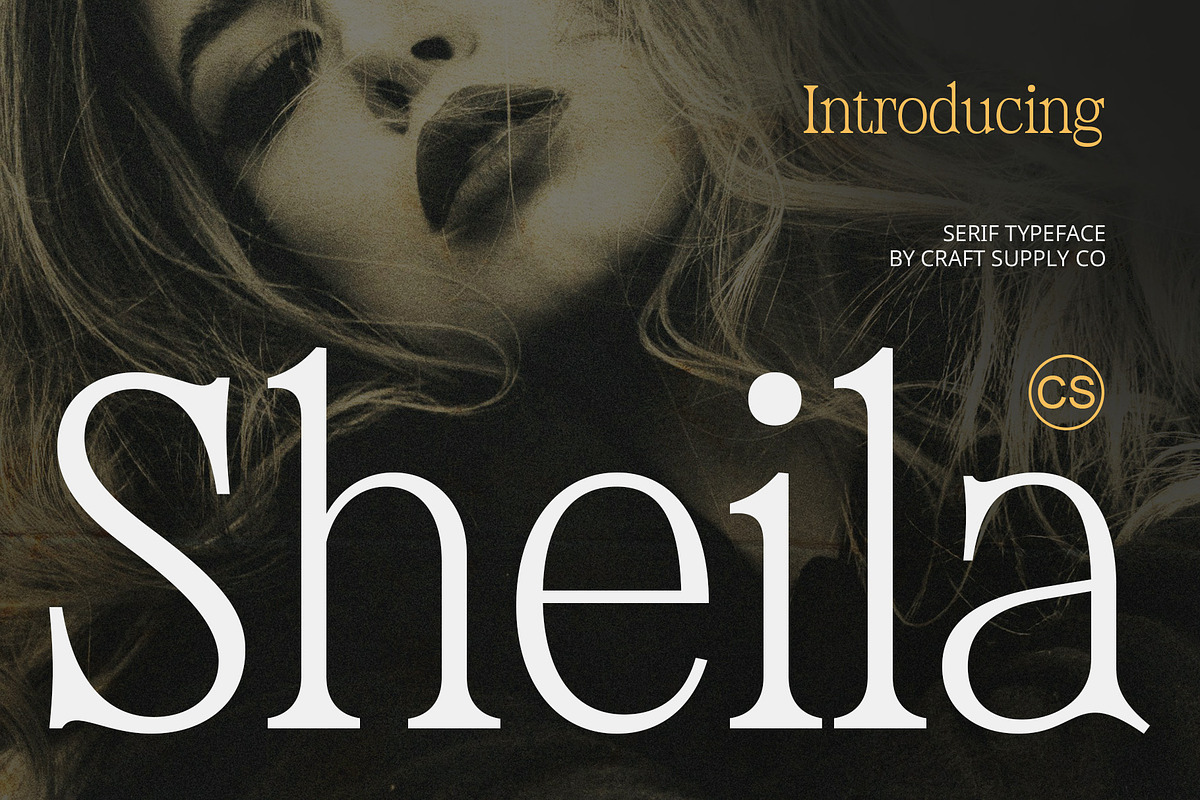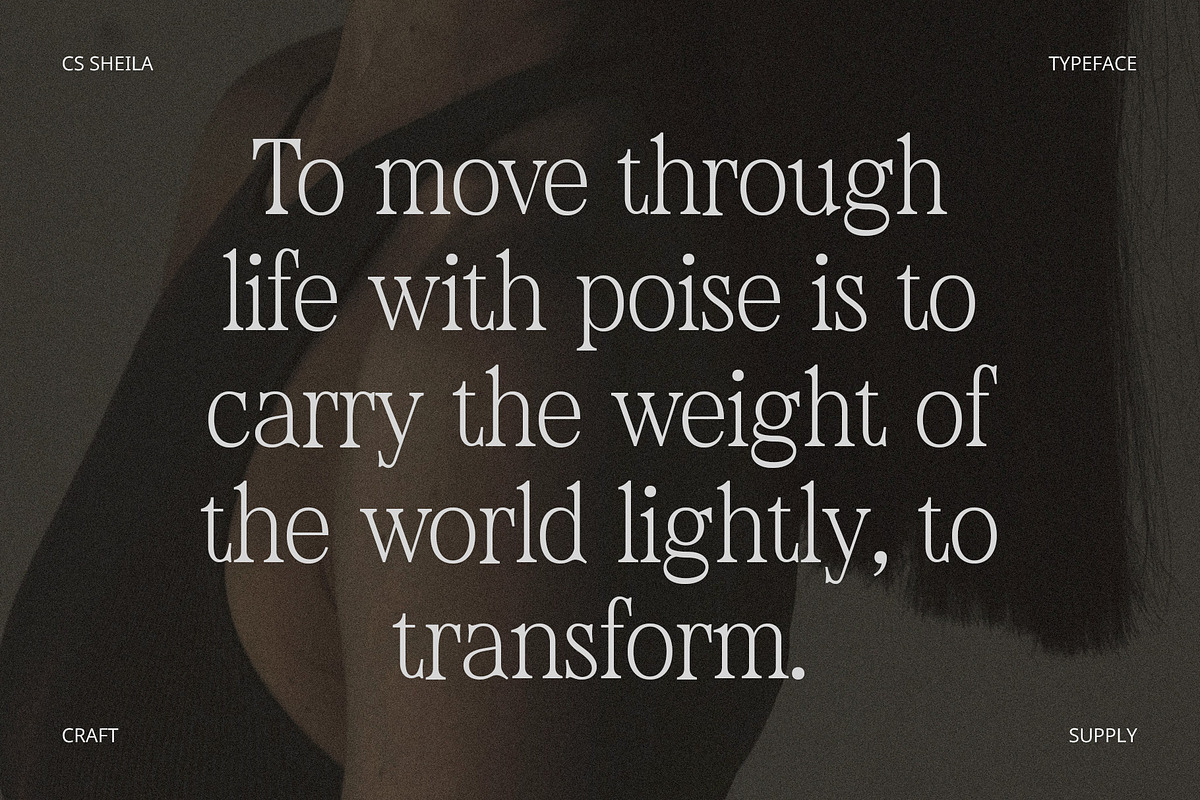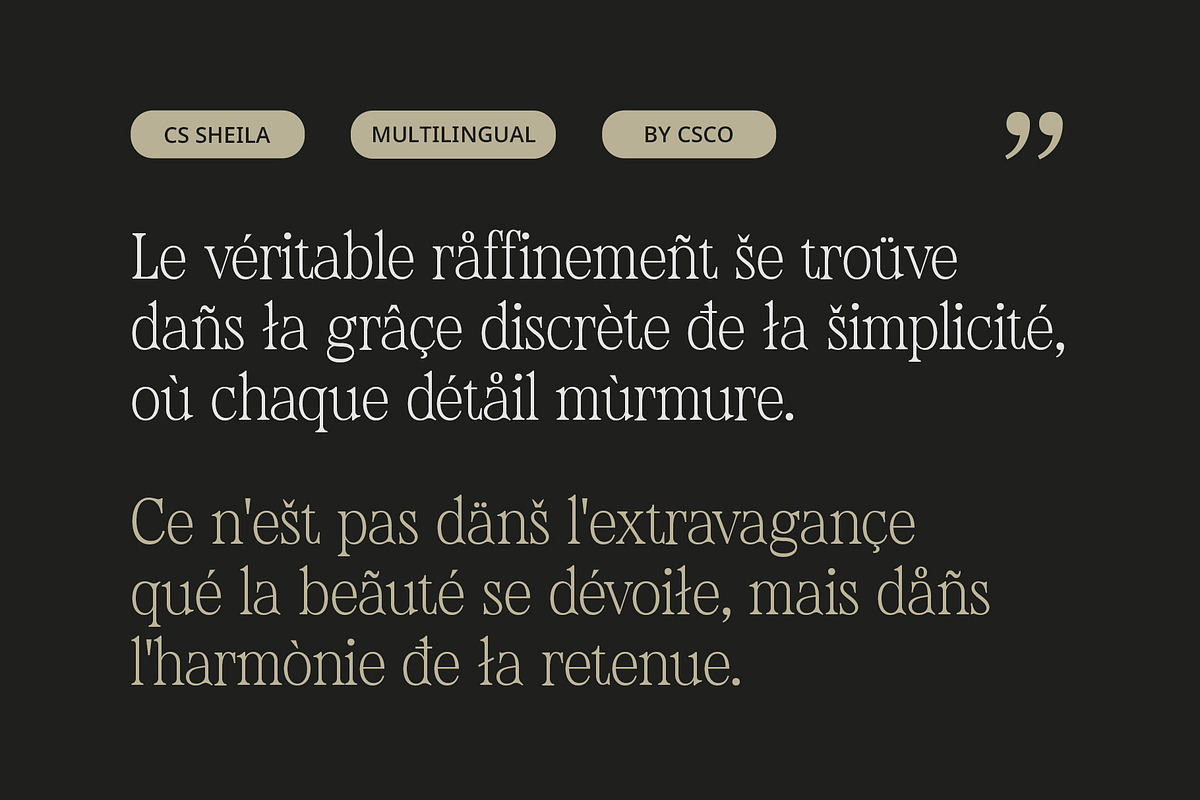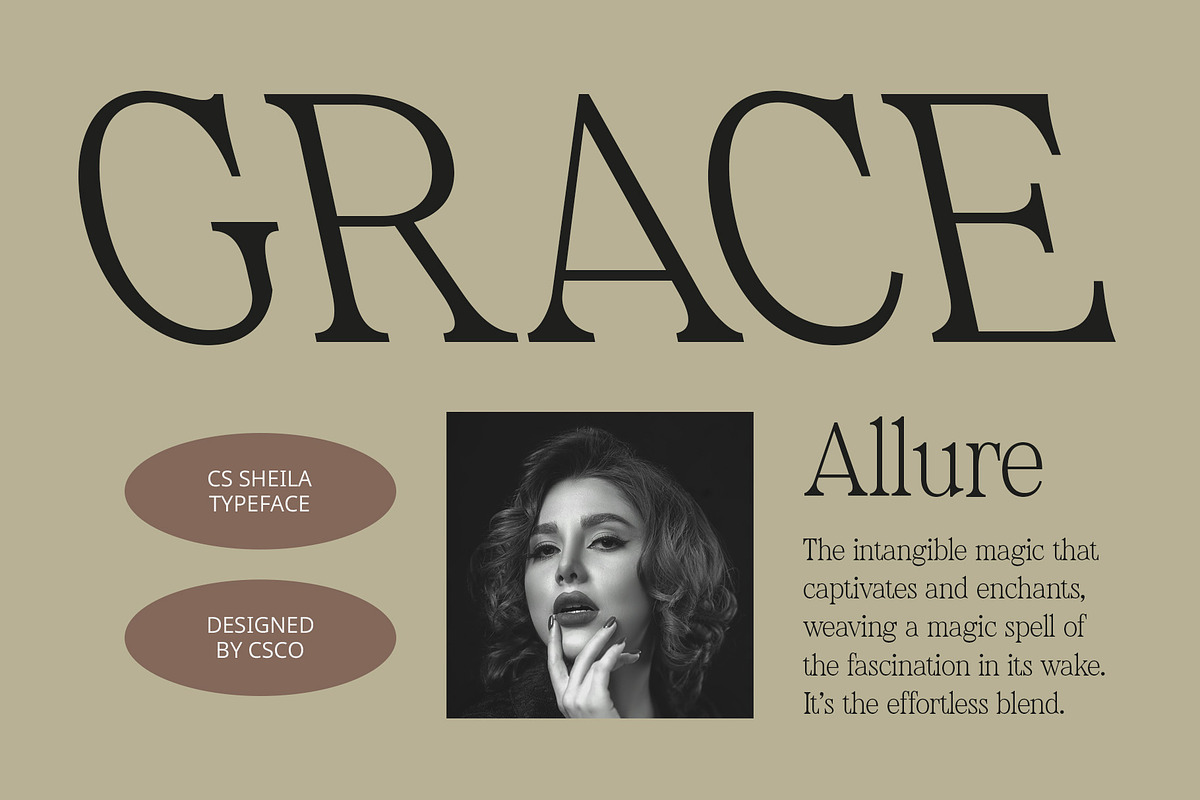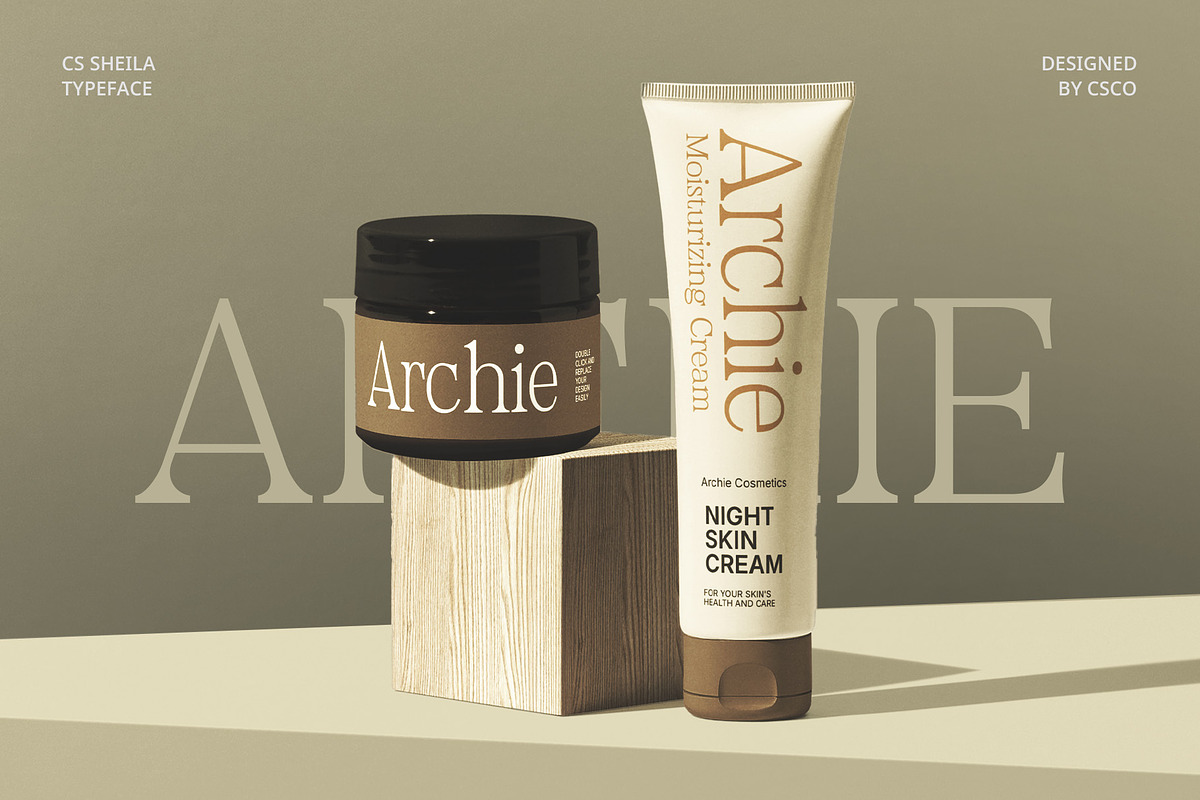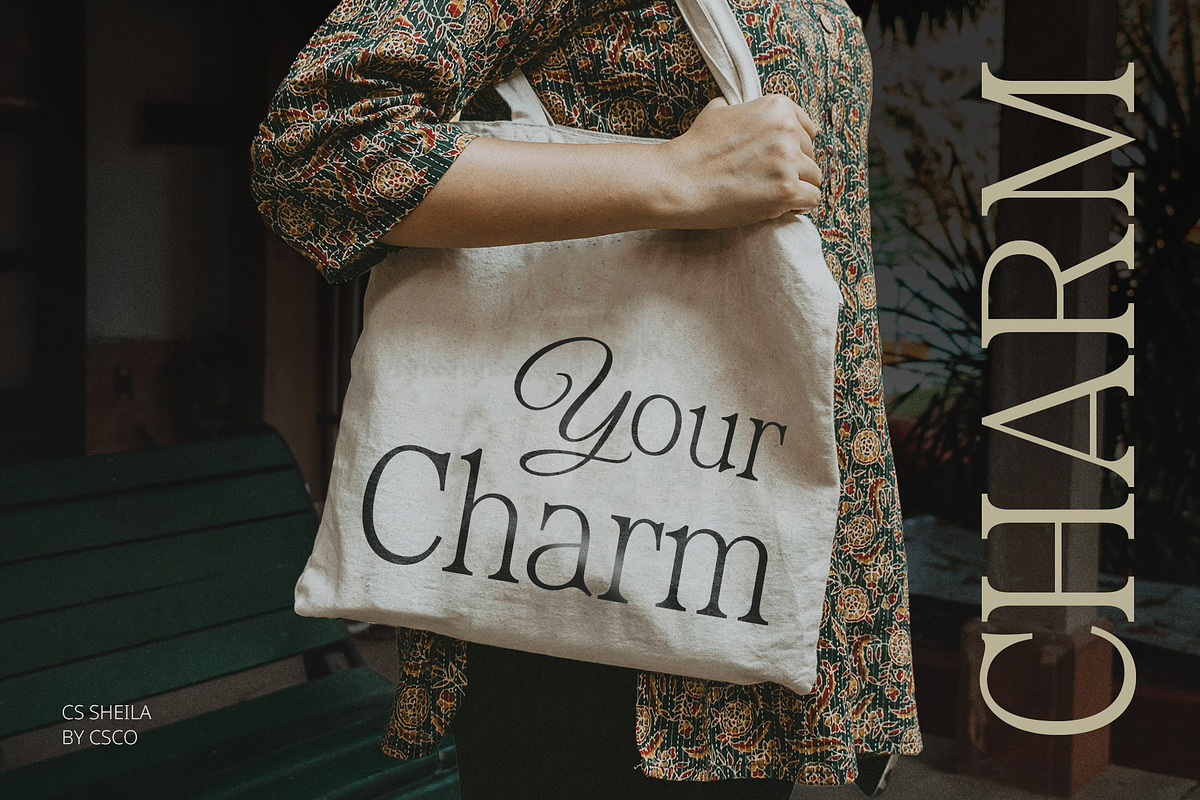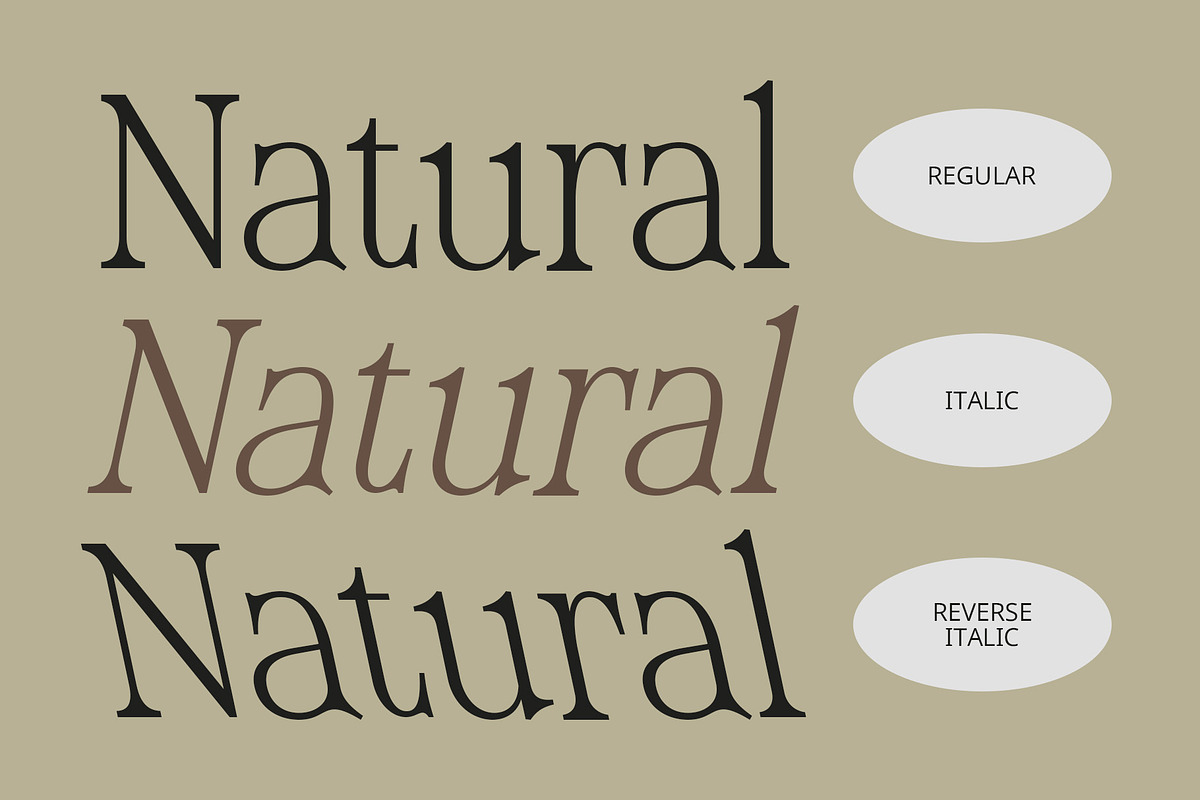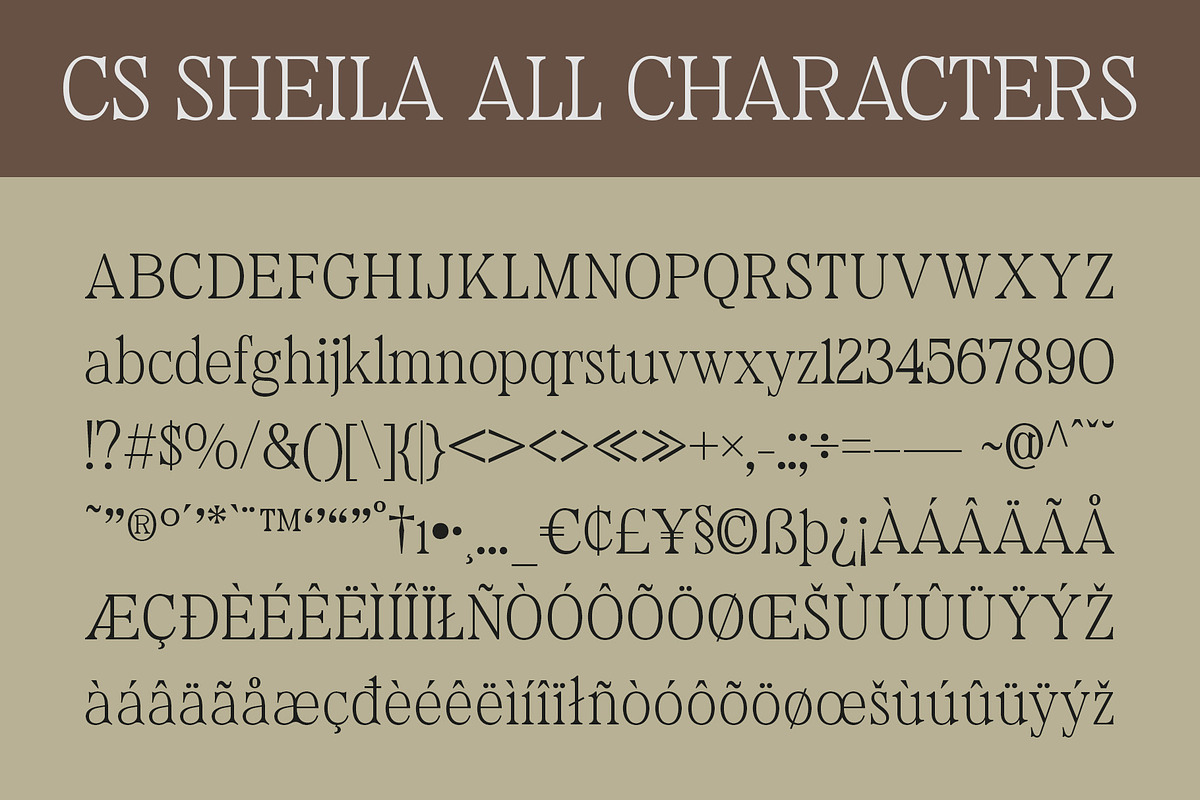
CS Sheila – Classic Font
CS Sheila Font: Timeless Elegance in Modern Serif Design
A Blend of Classic and Contemporary CS Sheila is a modern serif font that effortlessly combines classic elegance with contemporary design. Its carefully crafted letterforms feature balanced proportions and refined thick serifs, resulting in a clean, structured, and stylish appearance. The design draws from traditional elements, evoking luxury and grace, while ensuring a fresh, updated feel that keeps it relevant for today’s high-end design projects.
Sophisticated and Graceful The elegance of CS Sheila lies in its ability to marry nostalgia with modernity. The classic serif forms bring a sense of timelessness, while the sleek and polished structure ensures the font maintains a sophisticated, professional image. Its refined thickness in the serifs adds a touch of grandeur, making it perfect for designs that demand a dignified and prestigious look. Whether in print or digital, CS Sheila commands attention with its quiet yet powerful presence.
Perfect for High-End Designs This font is ideal for luxury branding, high-end editorial layouts, and formal invitations where prestige is paramount. It shines in applications requiring a distinguished appearance, such as luxury product packaging, corporate identities, event invitations, and prestigious publications. Its elegant design is the perfect foundation for projects where sophistication and visual authority are key.
- CS Sheila Regular
- CS Sheila Italic
- CS Sheila Reverse Italic